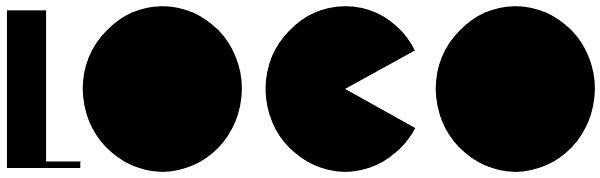
Loco
Loco is an impacting display typeface playing with simple geometric forms perfect for posters, flyers, magazines and everything that needs to look bold, noticeable and up-to-date. Loco was created to perfectly match Ambassador Plus Sans Light. Their...